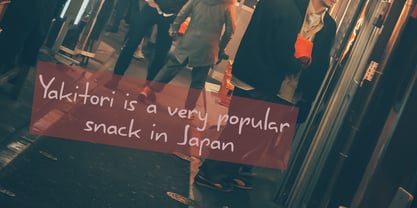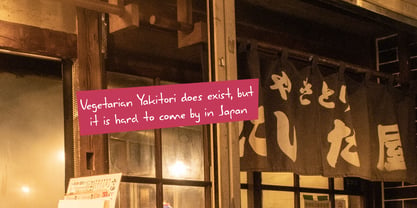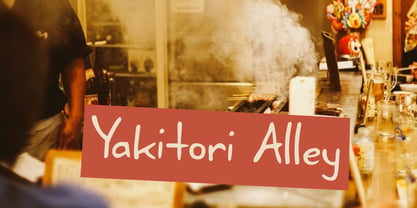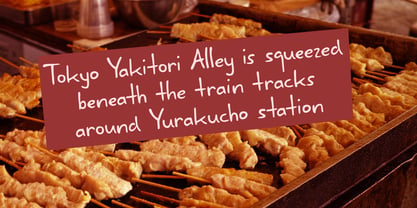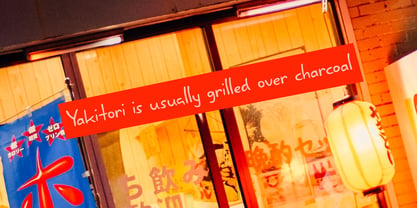
Yakitori Alley Pro
by Hanoded
The Yakitori Alley Pro Font Family was designed by David Kerkhoff and published by Hanoded. Yakitori Alley Pro contains 1 styles and family package options. More about this family
My son Sam saved all his pennies for a trip to Japan with me. Hi dream came true this year and we traveled around Honshu for 10 days. One of the things on his ‘to do’ list was eating yakitori, so I took him to famous Yakitori Alley in Tokyo. The setting was legendary, the smell was great, but the yakitori, unfortunately, was so-so..
Yakitori Alley is a fun, scribbly script font with language support and a set of contextual alternates.
Hanoded is run by Dutchman David Kerkhoff. His fonts are a mishmash of styles, as he just creates whatever pops into his head. You will find a lot of brush fonts in his collection, as his favourite tools are brushes and Chinese ink, with cartoon style fonts and script fonts complementing his repertoire. Aside from making fonts, David occasionally guides tours in far-flung places, renovates his '30's house and tries reasoning with his wife and (teenage) kids. Not an easy task!